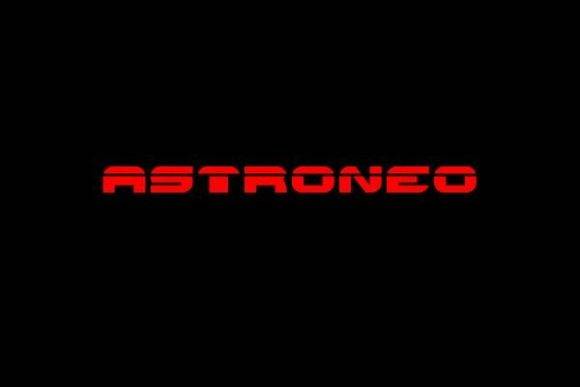
Astroneo Font for Headlines, Posters and Branding Projects
This download delivers a modern display typeface crafted specifically for use in large-format and high-impact design. Astroneo features futuristic geometry and sharp character forms, giving your headlines and brand assets a dynamic, forward-thinking look. As a font entity, it provides strong legibility and visual power in both digital and print layouts.
Perfect for editorial titles, tech startups, event posters, and branding elements, Astroneo brings an energetic presence to any design space needing bold clarity and a modern edge. Its unique letterforms and sharp angles create an engaging visual hierarchy that captures attention and enhances readability. As a standout choice for creative professionals, Astroneo is the ideal autoradiographic font for branding, ensuring messages resonate with clarity and impact. This versatility makes it an essential tool for both digital and print media, allowing for seamless integration across various platforms.
- Graphic designers working on futuristic or sci-fi themes
- Marketing teams producing high-tech campaigns
- Web designers building modern UI banners
- Branding experts crafting bold identities
- Creatives designing posters and media covers
- Headline graphics for web and print
- Event and promotional posters
- Tech and product branding assets
- Magazine layouts and cover designs
- Packaging and launch visuals
- Futuristic style with sharp, clean shapes
- Perfect for tech-forward and modern designs
- Works beautifully in large display sizes
- Great for print, web, and marketing collateral
Q: Is Astroneo suitable for posters and headers?
A: Yes. Astroneo was designed specifically for impactful display use such as headers, posters, and cover titles. Its bold and striking features make it a perfect choice for grabbing attention in any visual medium. Additionally, many designers have started to pair Astroneo with the aufal font for branding projects, creating a dynamic contrast that enhances the overall aesthetic. This combination not only elevates the visual appeal but also ensures that the message resonates effectively with the audience.
| Font Style | Futuristic sans-serif | Rounded headline font | Condensed geometric type |
| Ideal Uses | Tech branding, posters, UI headers | Event flyers and banners | Corporate reports and signage |
| Visual Impact | High-contrast and attention-grabbing | Friendly and playful | Structured and neutral |